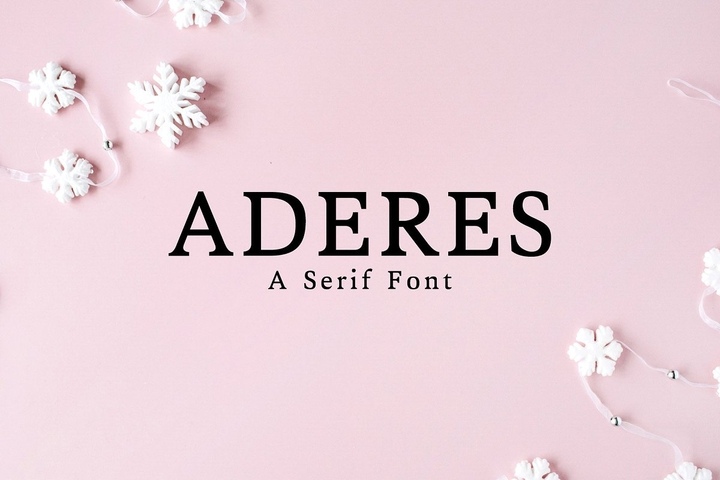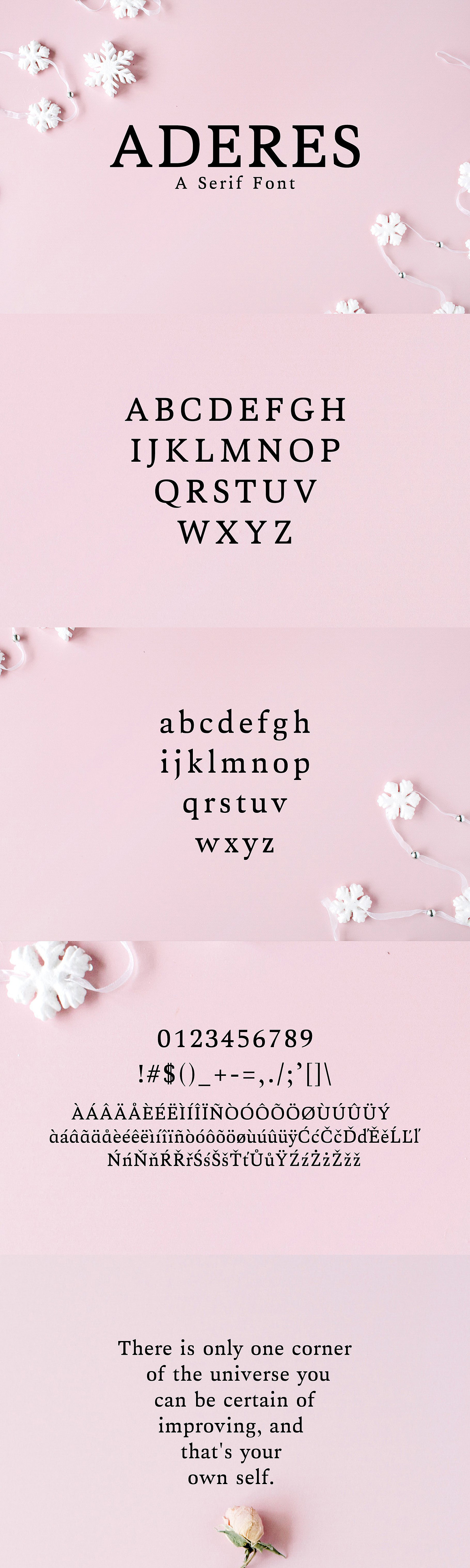
Aderes Serif 2 Font Family Pack
Aderes Serif 2 Font Family Pack is perfect for book publishing, academic journals, newspaper articles, literary magazines, professional documents, legal briefs, historical publications, and traditional editorial layouts.
Aderes Serif 2 Font Family Pack is exciting because it combines classical serif tradition with enhanced readability features, offering exceptional text flow and comfortable reading experience. Its balanced character proportions and optimized spacing create professional elegance ideal for extended reading applications.
Aderes Serif 2 Font Family Pack family includes regular and bold weights with corresponding italic variations, providing designers with four essential font styles for comprehensive typographic solutions in traditional and contemporary publishing projects.
Aderes Serif 2 Font Family Pack Free Download delivers professional-grade typography that excels in text-heavy applications requiring sustained reader engagement. This carefully engineered typeface demonstrates superior craftsmanship through its refined serif details and optimized character spacing that reduces eye strain during extended reading sessions. The font's scholarly appearance makes it particularly suitable for educational institutions, publishing houses, and professional service firms seeking credible visual communication.
Editorial teams consistently select Aderes Serif 2 Font Family Pack for its outstanding performance in both digital and print publications. The font's traditional foundation provides familiar reading comfort while subtle modern refinements ensure contemporary relevance. Its excellent legibility at various sizes makes it versatile for everything from footnotes to headlines, maintaining consistent quality across diverse application requirements.
The Aderes Serif 2 Font Family Pack download includes comprehensive character sets with extensive punctuation marks, mathematical symbols, and international language support. This thorough coverage ensures professional results in academic publications, technical documentation, and multilingual projects. The font's careful attention to baseline consistency and character alignment creates polished layouts that enhance reader comprehension and engagement.
Publishing professionals appreciate Aderes Serif 2 Font Family Pack's reliability in creating authoritative documents that command respect and attention. Its classical heritage combined with technical precision makes it an essential tool for organizations requiring trustworthy visual communication that conveys expertise, stability, and professional competence across all written materials.